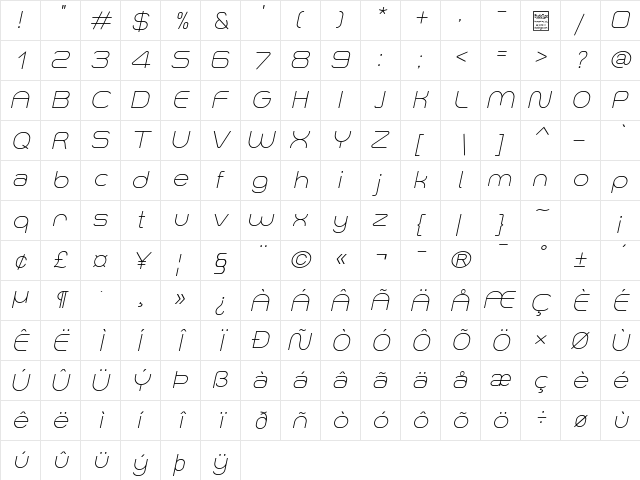
Smush Light Italic
| Foundry | StudioTypo |
| Designer | Mehmet Abac |
Design Context for Smush Light Typeface
Smush Light offers clean, dependable letterforms without strong stylistic allegiance, making it a practical choice for designers who need flexibility. The slanted form adds forward momentum and visual energy. The delicate stroke weight brings airiness and refinement to layouts.
Pro Tip: Use Smush Light for emphasis, pull quotes, and subheadings where its slanted energy can add rhythm to the layout.